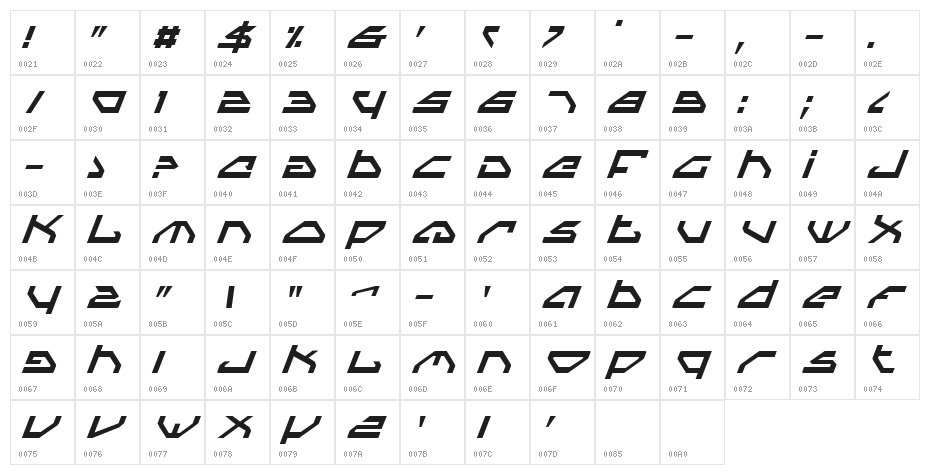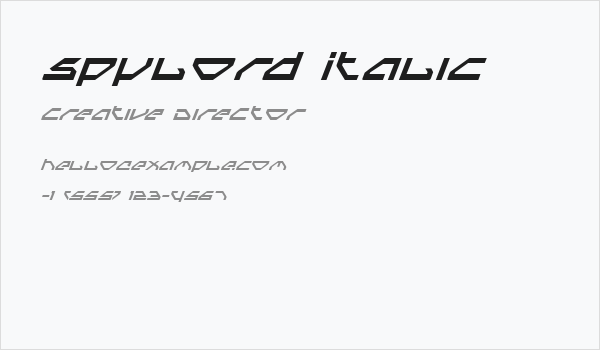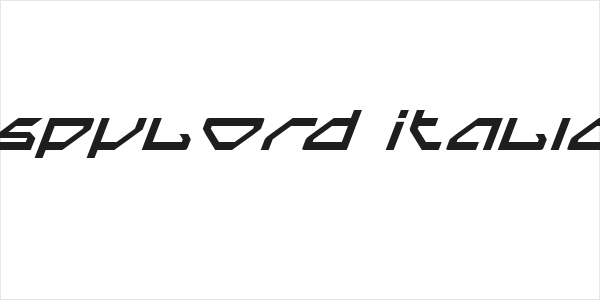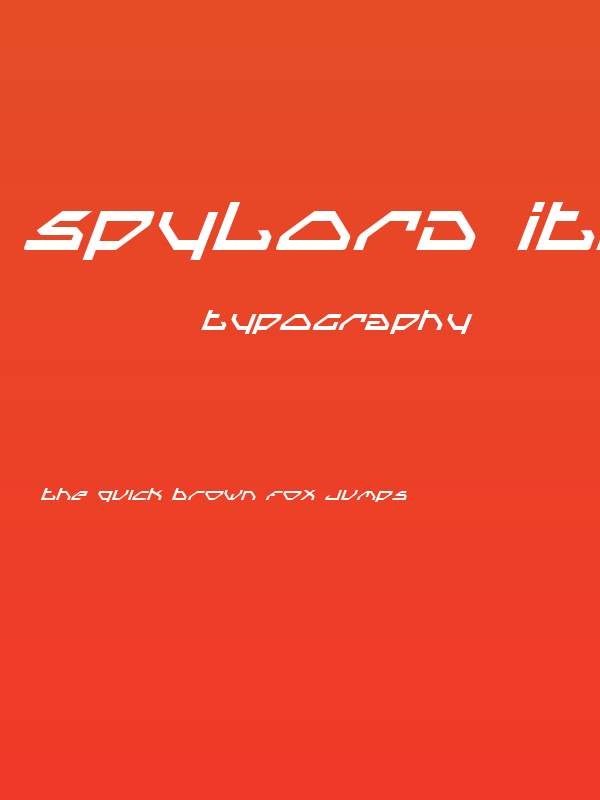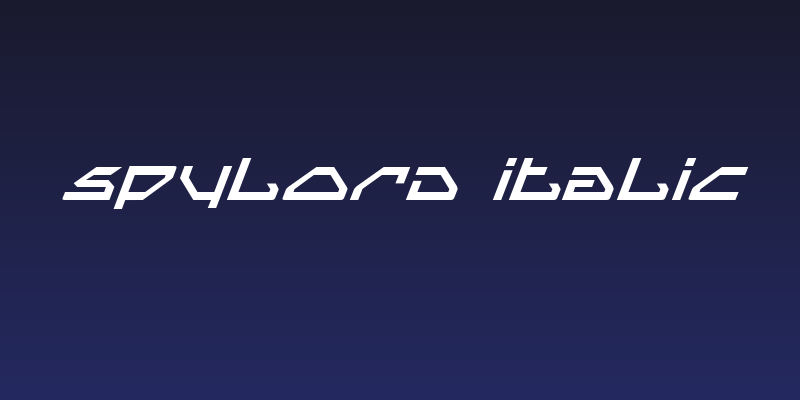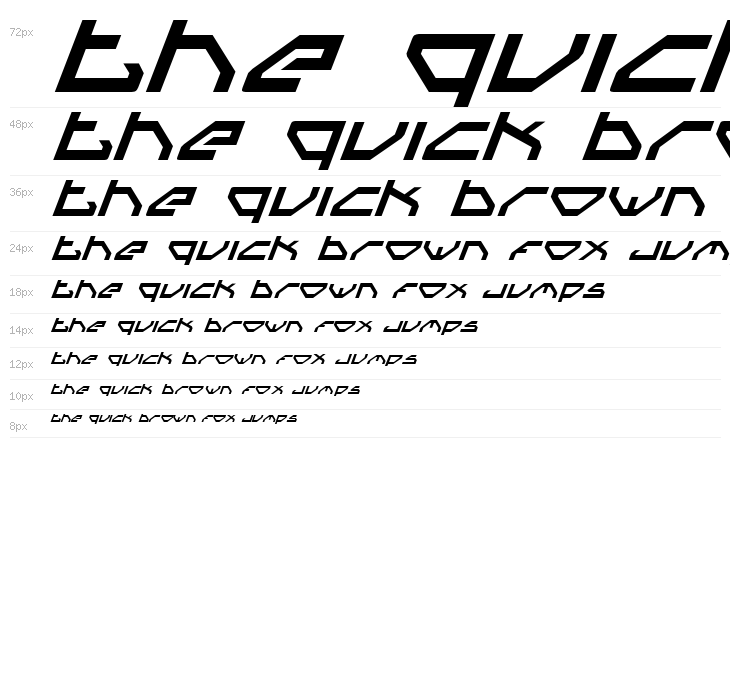
Spylord Italic Font
Spylord Italic Description
This font features a futuristic and angular design, characterized by sharp edges and a distinct slant that gives it a dynamic and forward-moving appearance. The uppercase and lowercase letters share a consistent geometric style, with each character exhibiting a unique angular cut that enhances its modern aesthetic. The numerals and special characters maintain this cohesive design, ensuring uniformity across all glyphs. The font's bold strokes and italicized form contribute to its striking presence, making it suitable for projects that require a strong visual impact.
| Proposed Projects | Ideal for sci-fi themed designs, video game titles, technology branding, and futuristic posters. |